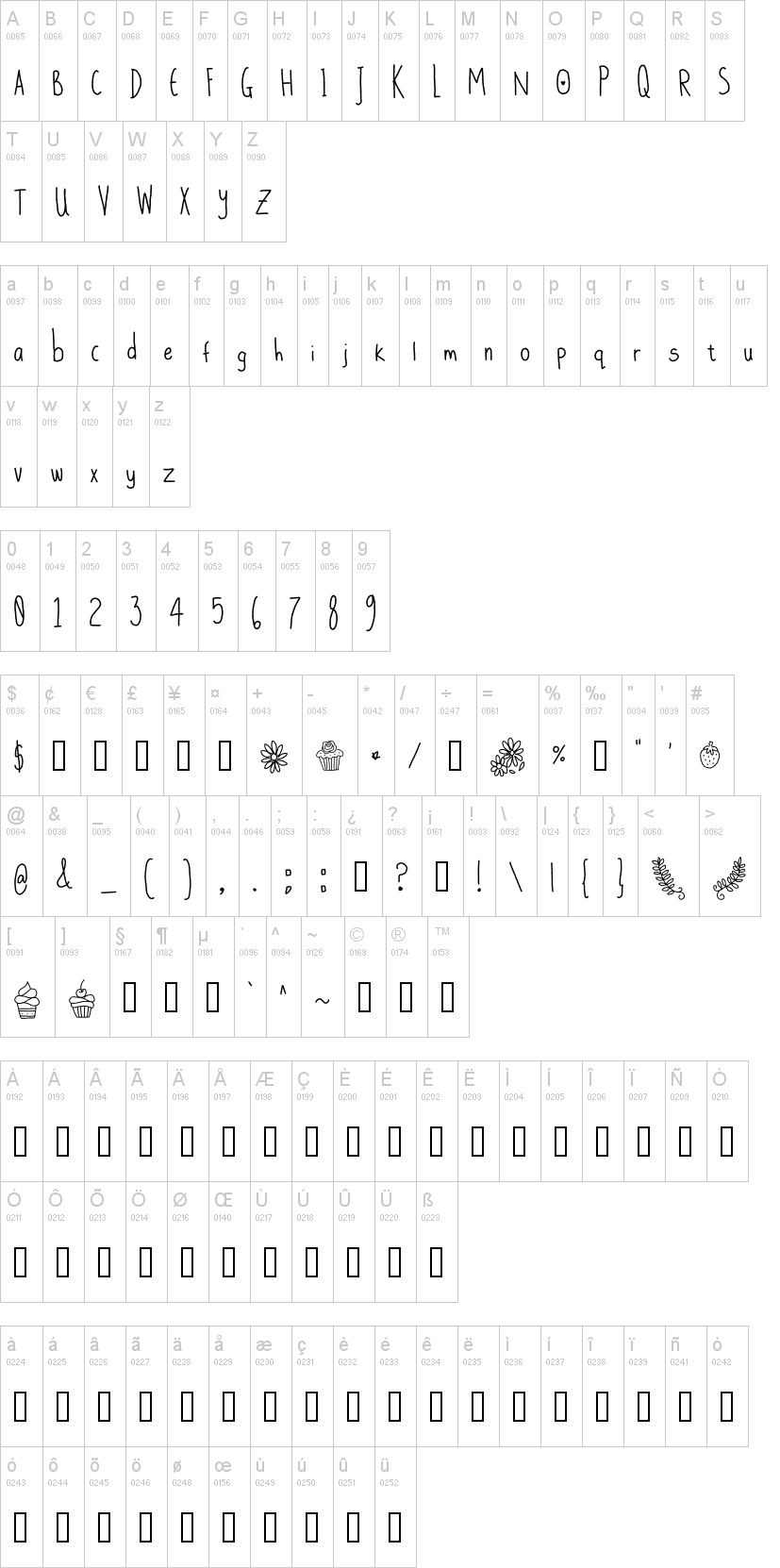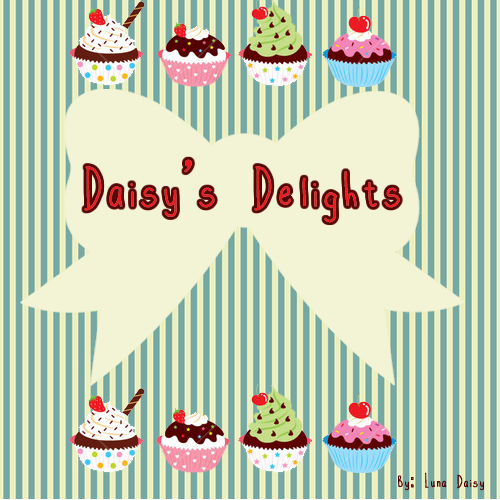
Daisy's Delights
Note of the authorDaisy's Delights is an adorable and yummy font baked with love by yours truly.
This font includes a few doodles, hope you guys will like it as much as I do.